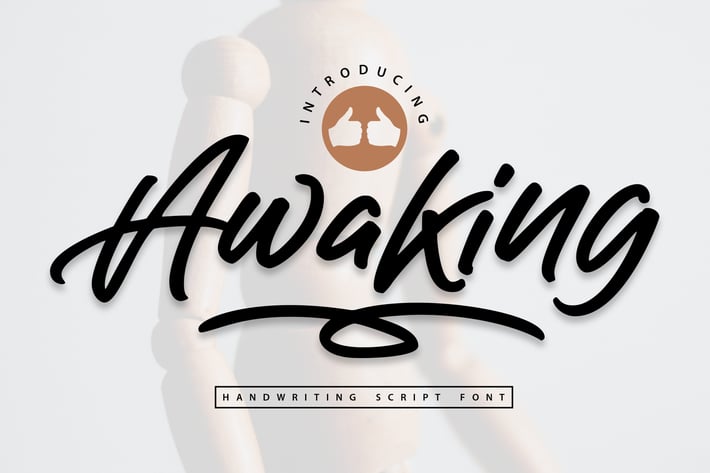
Awaking | Handwriting Script Font
Awaking | Handwriting Script Font with a calligraphy style, So beautiful on invitation like greeting cards, branding materials, business cards, quotes, posters, and more!